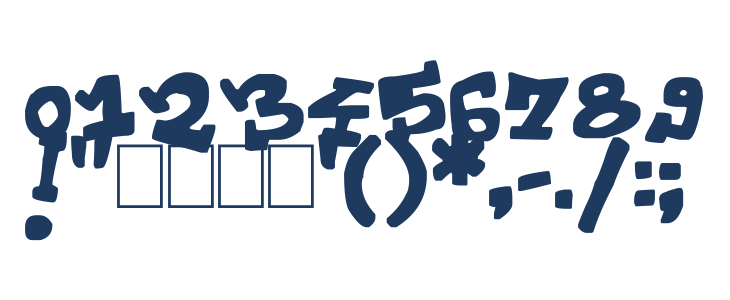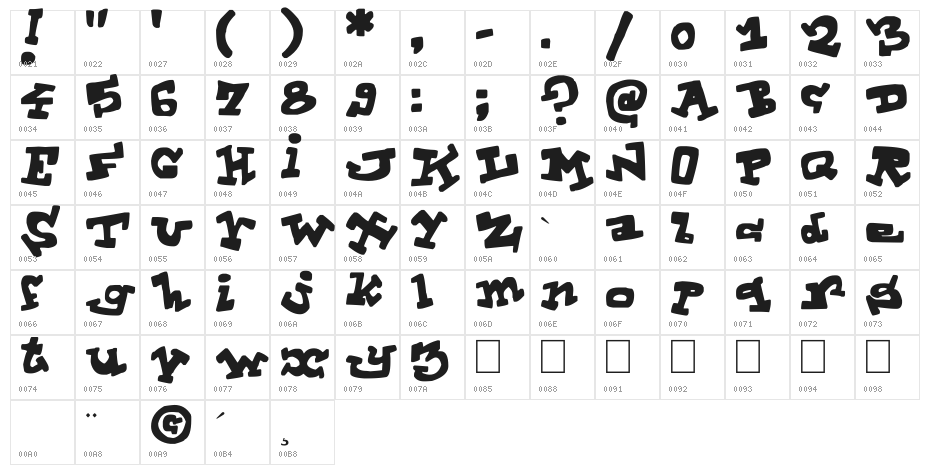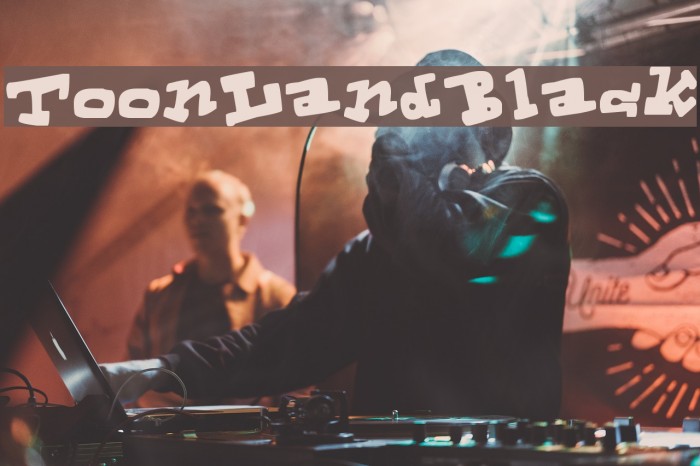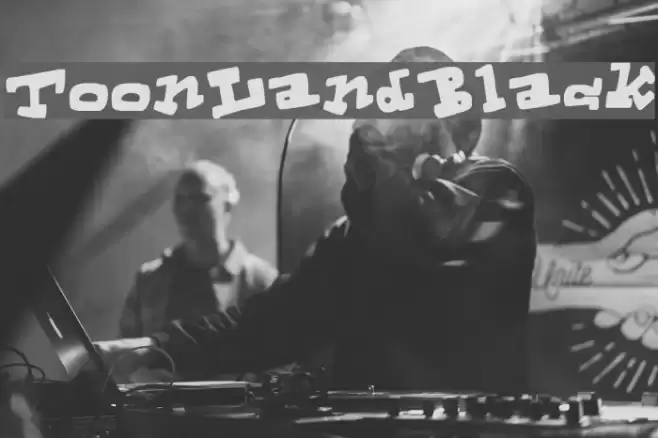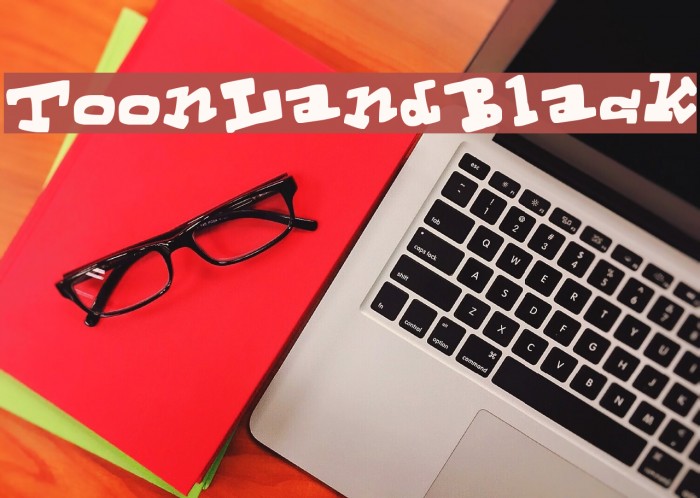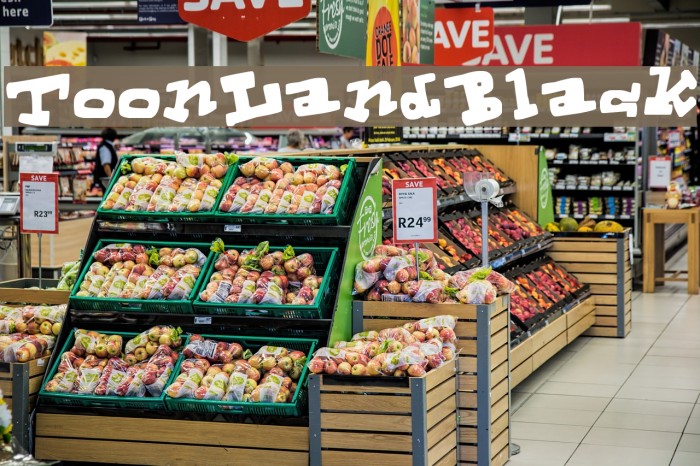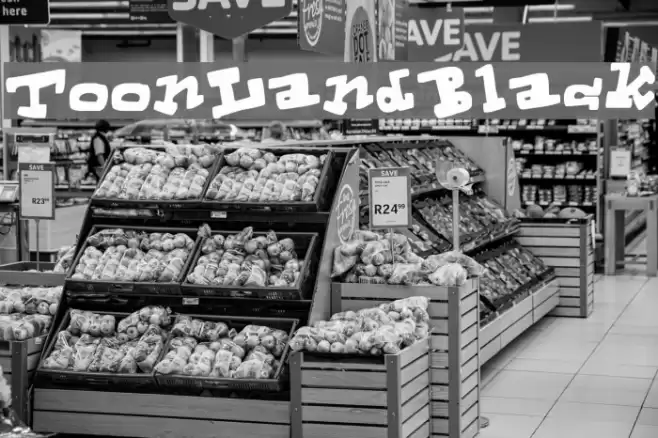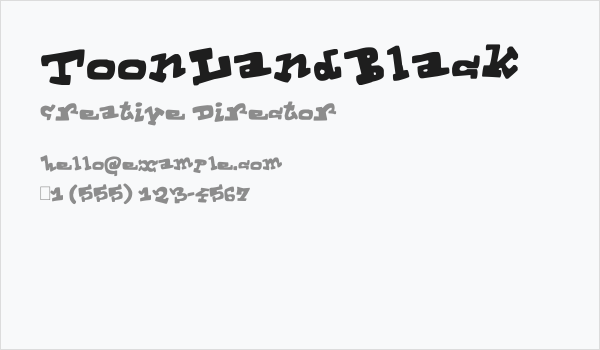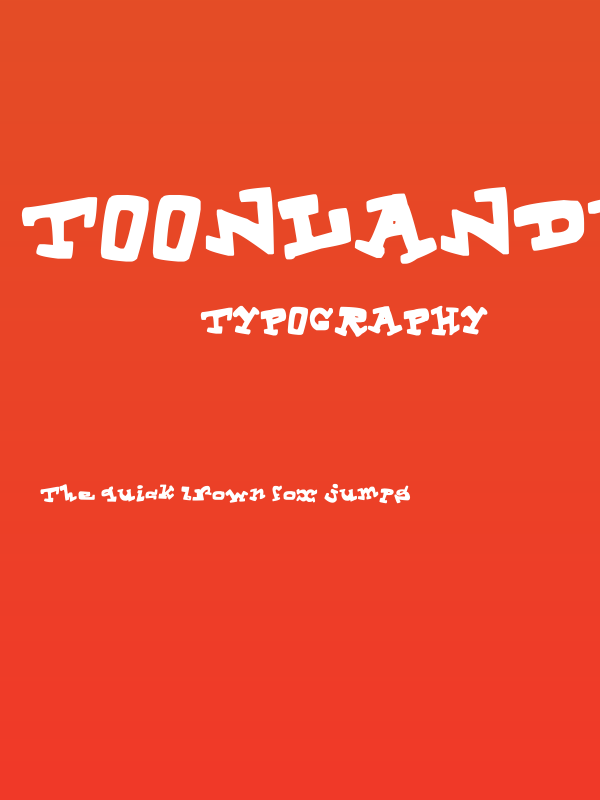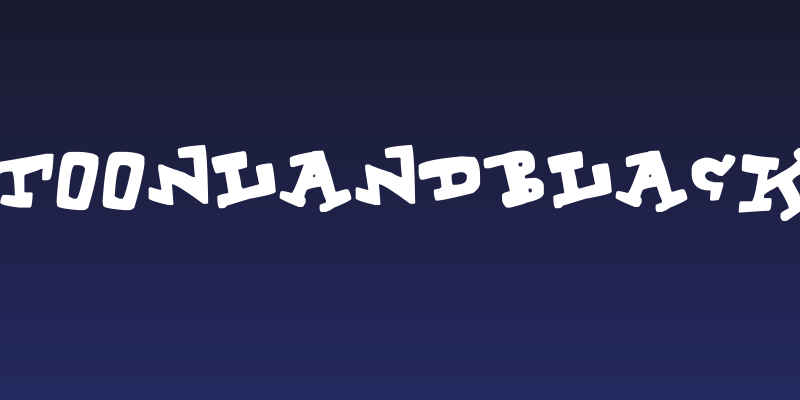
ToonLandBlack Font
ToonLandBlack Description
This playful and bold font features a cartoonish style with exaggerated, irregular shapes and a whimsical flair. The characters are thick and heavy, with a hand-drawn appearance that adds a sense of fun and creativity. The letters have a dynamic, bouncy quality, with varying angles and curves that create a lively and energetic feel. The font is highly decorative, making it ideal for projects that require a touch of humor or a youthful vibe. Its unique style is perfect for capturing attention and making a statement.
| Overall Style | Playful, Cartoonish, Whimsical |
| Proposed Projects | Ideal for children's books, comic strips, playful branding, and fun event posters. |